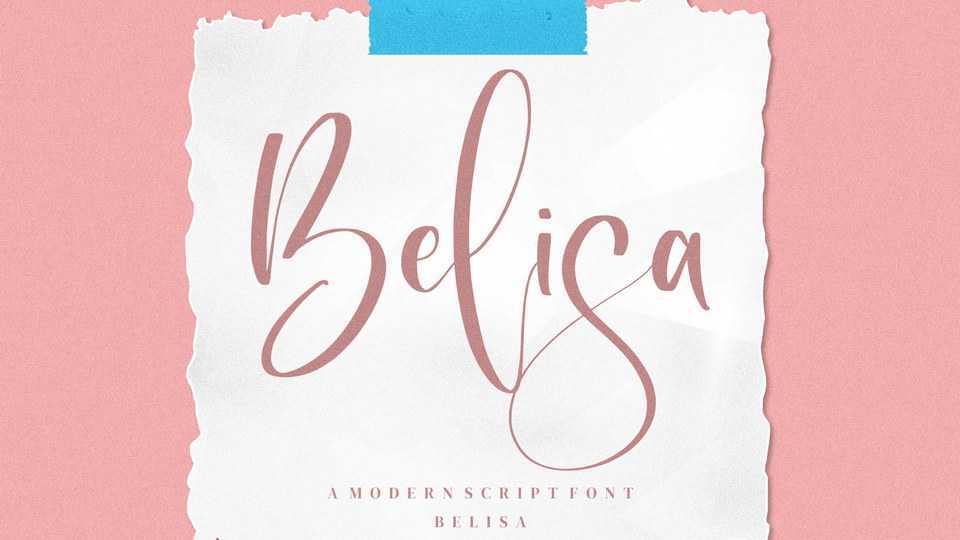
Download Belisa font, a lovely and graceful hand lettered script typeface. With its ravishing style, Belisa font is perfect to create gorgeous wedding invitations, beautiful stationary art, eye-catching social media posts, and much more.